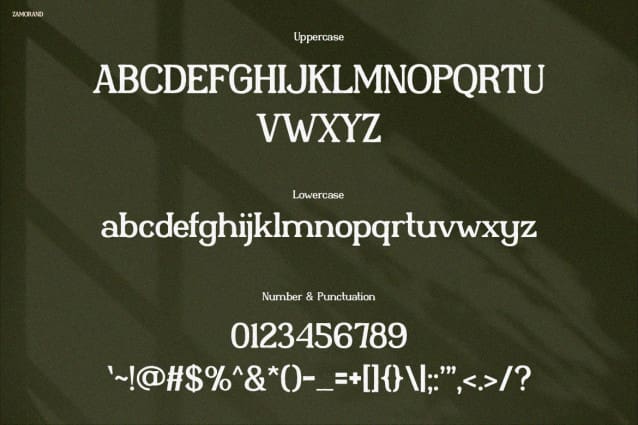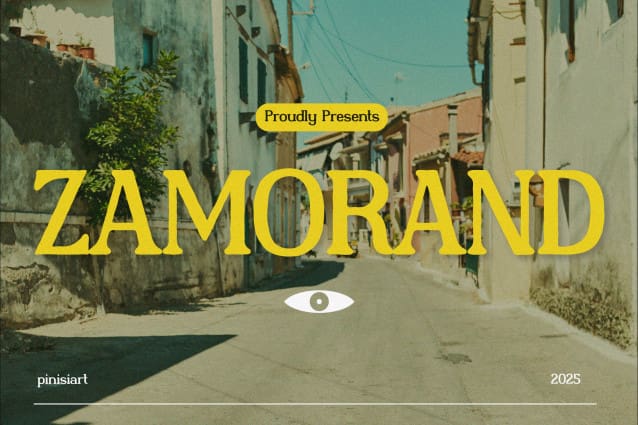
Zamorand Font
Zamorand Font beautifully captures the warmth and timeless charm of classic typography, inviting viewers to travel back in time through every elegant curve. Unlike ordinary fonts, ZAMORAND blends nostalgic aesthetics with modern readability, making it both stunning and functional. From its balanced serifs to its graceful lines, every letter was carefully designed to tell a story of heritage, elegance, and emotional connection.
Moreover, this font effortlessly bridges the gap between retro allure and contemporary design needs. Whether you’re creating a café logo, vintage poster, or emotional quote, ZAMORAND adds depth and character to your work. Its strong structure paired with gentle curves produces a unique visual rhythm — one that feels nostalgic yet remarkably current. As a result, your designs gain both sophistication and approachability, ensuring they stand out beautifully across digital and print media.